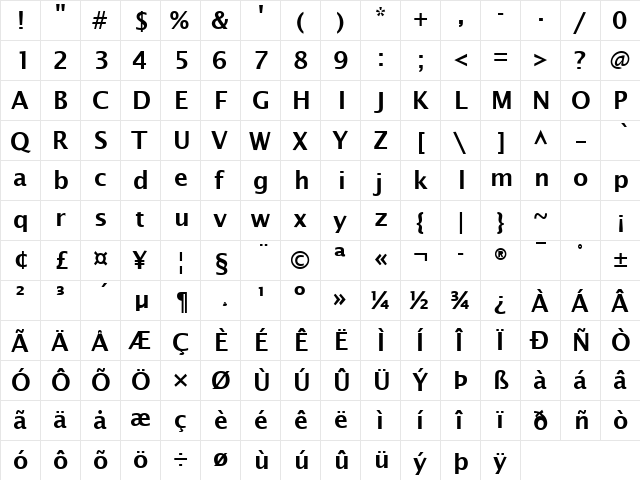
Rain Song 3 Demibold Roman
Design Context for Rain Song 3 Typeface
Rain Song 3 is a composed and adaptable typeface that performs quietly and consistently across a wide range of design contexts. Its bold stroke weight gives it real presence on the page.